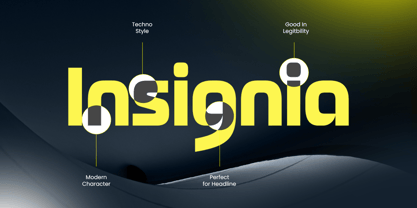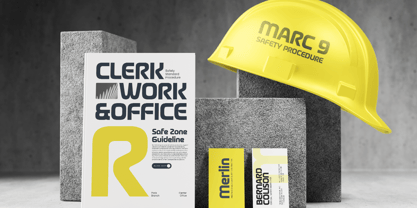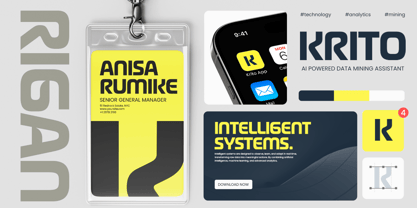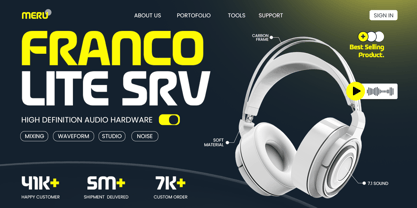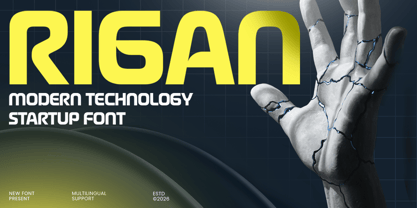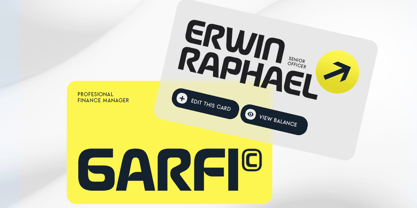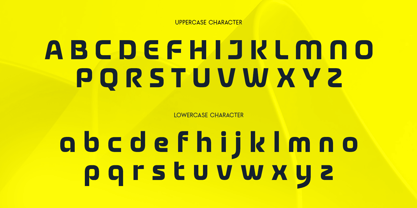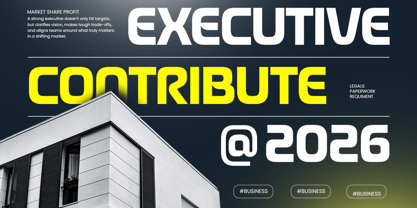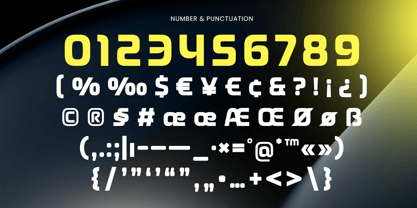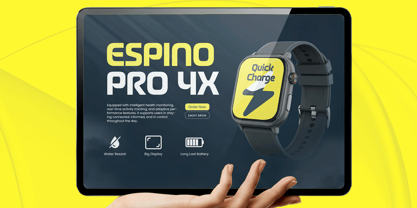
RIGAN is a modern technology startup font designed to capture the spirit of innovation, speed, and digital clarity. With its sleek construction, sharp details, and contemporary style, RIGAN brings a fresh and professional look that fits perfectly within startup branding and forward-thinking business design. Its modern character gives every layout a confident, clean, and high-tech impression.
Built for logos, brand identity, app design, websites, presentations, social media graphics, and promotional materials, RIGAN works exceptionally well across startup-focused creative projects. Whether you are developing a SaaS brand, fintech identity, AI platform, software product, or digital agency campaign, RIGAN delivers the polished feel of a modern technology startup font with strong visual relevance.
RIGAN is ideal for designers who need a typeface that feels smart, reliable, and future-ready. Its balanced structure makes it effective for both bold headlines and refined branding systems, helping your work stand out across digital and print media. For startups that want a modern logo font with clarity and energy, RIGAN offers a versatile solution with professional appeal.
RIGAN – Modern Technology Startup Features
Clean modern technology-inspired character set
Designed for startup branding, logos, and digital identity
Sleek letterforms with a futuristic and professional feel
Ideal for apps, websites, UI design, and tech presentations
Great for social media, posters, headlines, and packaging
Includes uppercase, lowercase, numerals, and punctuation
OpenType features for creative typographic flexibility
Multilingual Support